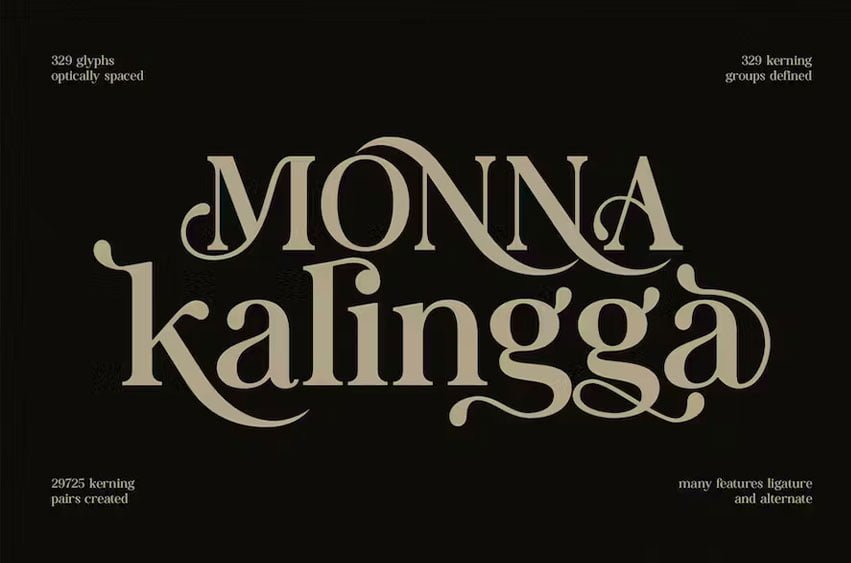
Monna Kalingga Font is a beautiful series of letters is encapsulated in this ‘Monna Kalingga’ font. Neat lettering is perfect for writing needs that are modern and pleasing to the eye. The addition of the ligature and alternate features to the ‘Monna Kalingga’ font is of course very enjoyable for those of you who want to be creative with various choices for each letter. There is a Modern impression but still looks Elegant when used for writing. What do you get: -OTF -TTF -WOFF